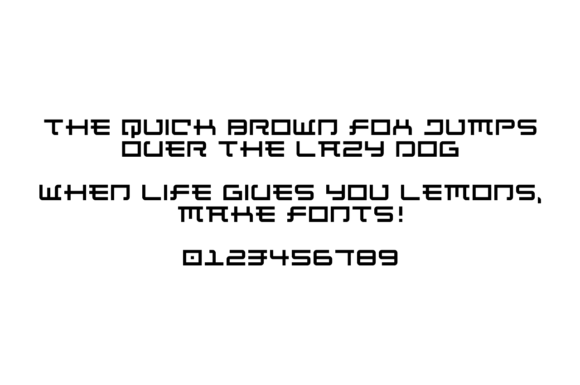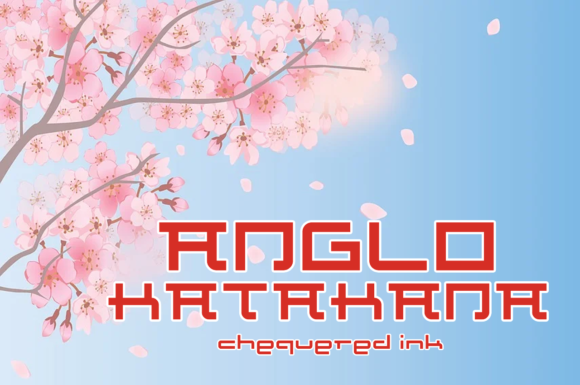
Invoke the Feeling of the Far East with Anglo Katakana Font
Are you a designer or crafter looking to add a touch of the Far East to your projects while still retaining the familiarity of Latin characters? Look no further than our new font, Anglo Katakana. This unique and stylish font combines the distinctive look of Katakana script with the versatility of the Latin alphabet, creating a truly one-of-a-kind typographic experience.
What is Katakana?
Katakana is a script used in the Japanese language, typically employed to write foreign words, loanwords, and emphasis. Its bold and angular strokes make it a visually striking script that evokes the vibrant culture of Japan. By incorporating Katakana elements into our font, we aimed to capture the essence of Japanese aesthetics while still maintaining readability and usability.
The Birth of Anglo Katakana Font
Our team of skilled typographers and designers worked tirelessly to create a font that seamlessly blends the Katakana script with Latin characters. The result is Anglo Katakana, a font that not only looks great but also provides excellent legibility. Each letter has been carefully crafted to ensure consistency and harmony between the Katakana and Latin characters, making it perfect for a wide range of design applications.
Key Features of Anglo Katakana Font
- Unique blend of Katakana and Latin scripts: Our font combines the best of both worlds, offering a distinctive look that sets it apart from traditional fonts.
- Excellent legibility: Carefully designed to ensure clear readability, even at small font sizes.
- Support for multiple languages: Anglo Katakana supports a wide range of languages, including English, Spanish, French, and more.
- Versatile design: Suitable for various design applications, from branding and advertising to packaging and digital media.
Use Cases for Anglo Katakana Font
Anglo Katakana’s versatility makes it an excellent choice for a variety of design projects. Here are a few examples:
- Branding and Logo Design: Create a unique and memorable brand identity with Anglo Katakana’s distinctive look.
- Advertising and Marketing Materials: Add a touch of the Far East to your advertising campaigns and marketing materials.
- Packaging Design: Stand out on store shelves with eye-catching packaging that incorporates Anglo Katakana.
- Digital Media: Use Anglo Katakana in your digital projects, such as website design, social media graphics, and more.
Why Choose Anglo Katakana Font?
With so many fonts available, why choose Anglo Katakana? Here are a few compelling reasons:
- Uniqueness: Anglo Katakana offers a fresh and distinctive look that will set your designs apart.
- Cultural significance: By incorporating Katakana elements, Anglo Katakana provides a subtle nod to Japanese culture and aesthetics.
- Readability: Our font is designed to be clear and legible, ensuring that your message gets across effectively.
Anglo Katakana Font is an exciting new addition to the world of typography, offering a unique blend of Katakana and Latin scripts. Whether you’re a designer, crafter, or simply someone looking to add a touch of the Far East to your projects, Anglo Katakana is an excellent choice. With its excellent legibility, versatility, and cultural significance, this font is sure to inspire and elevate your designs.